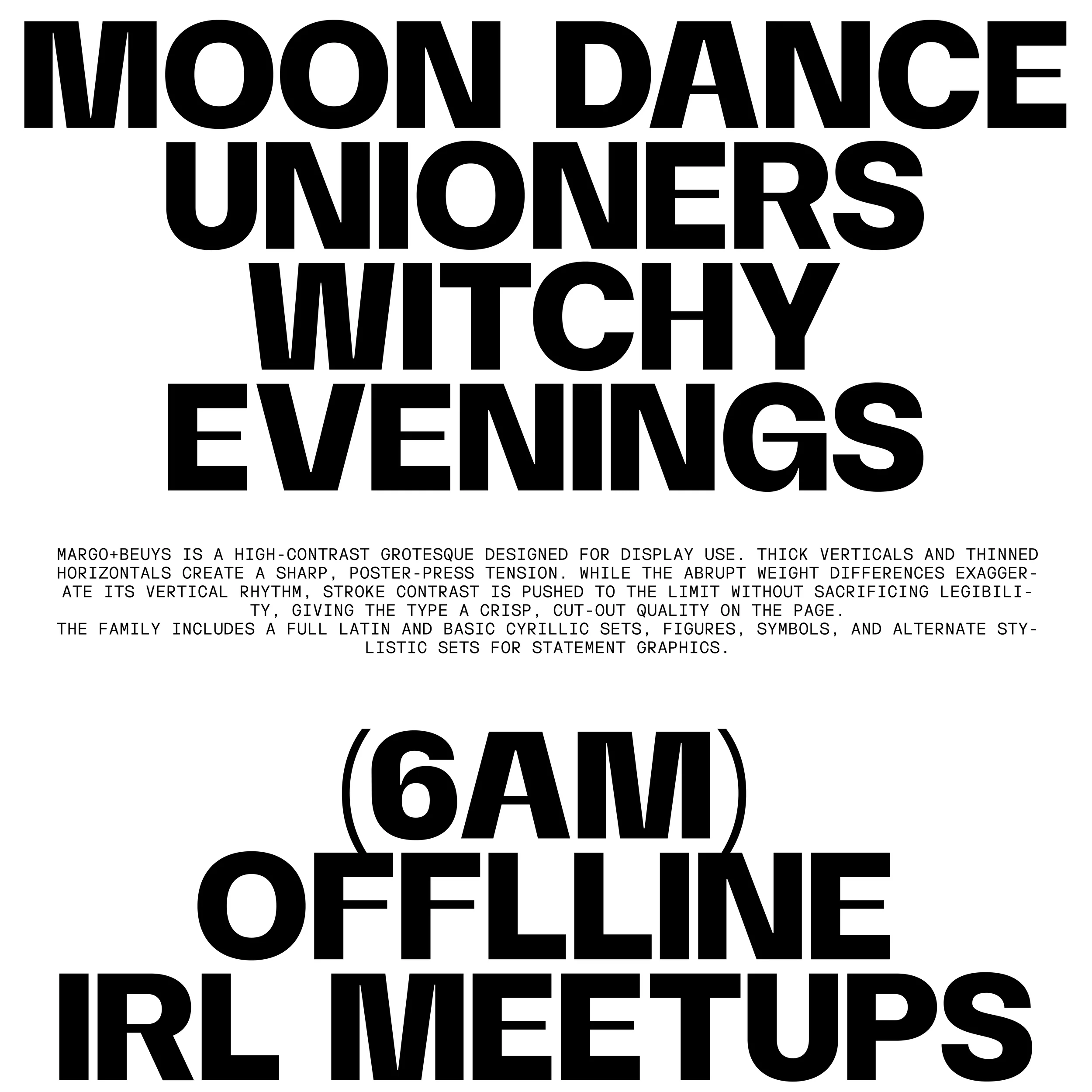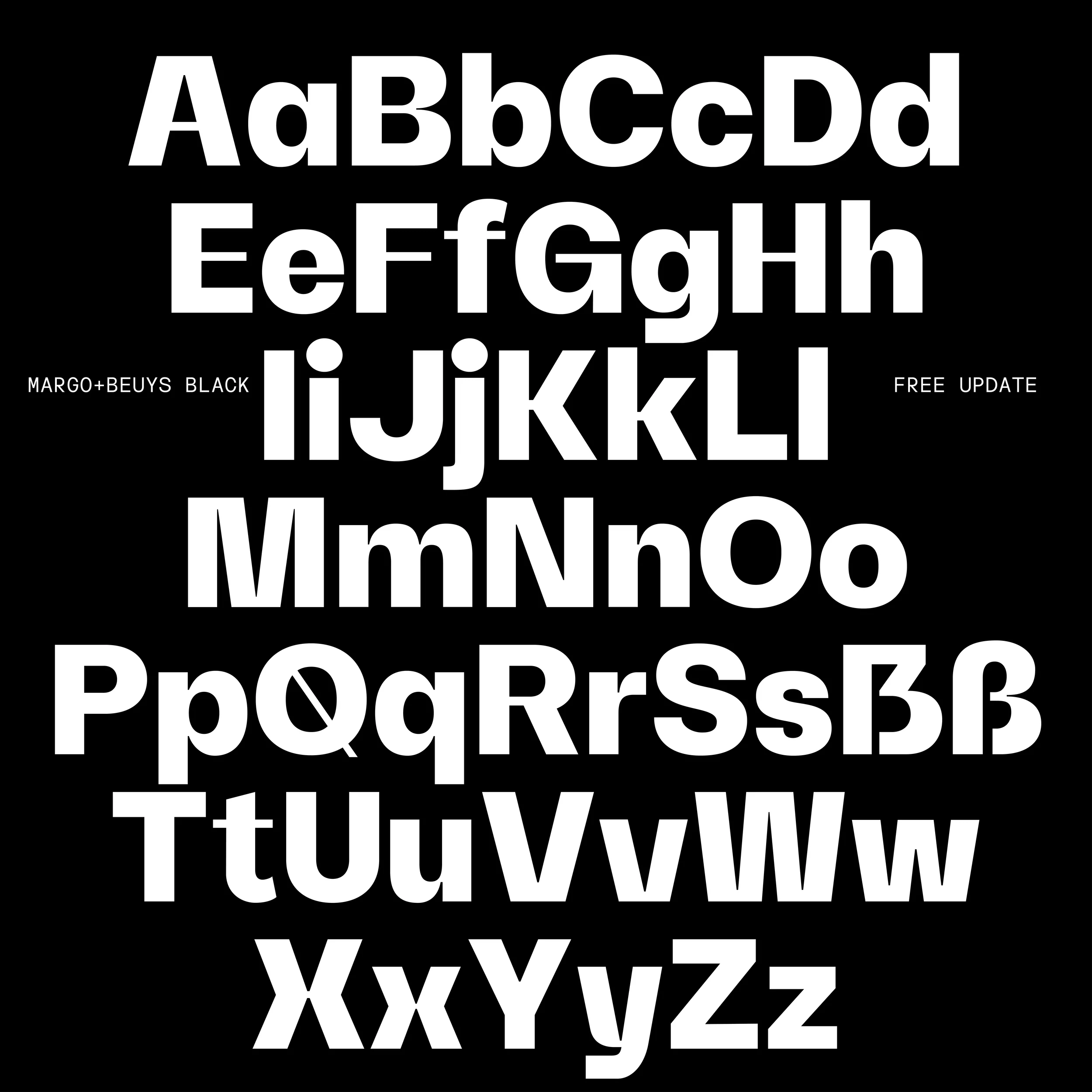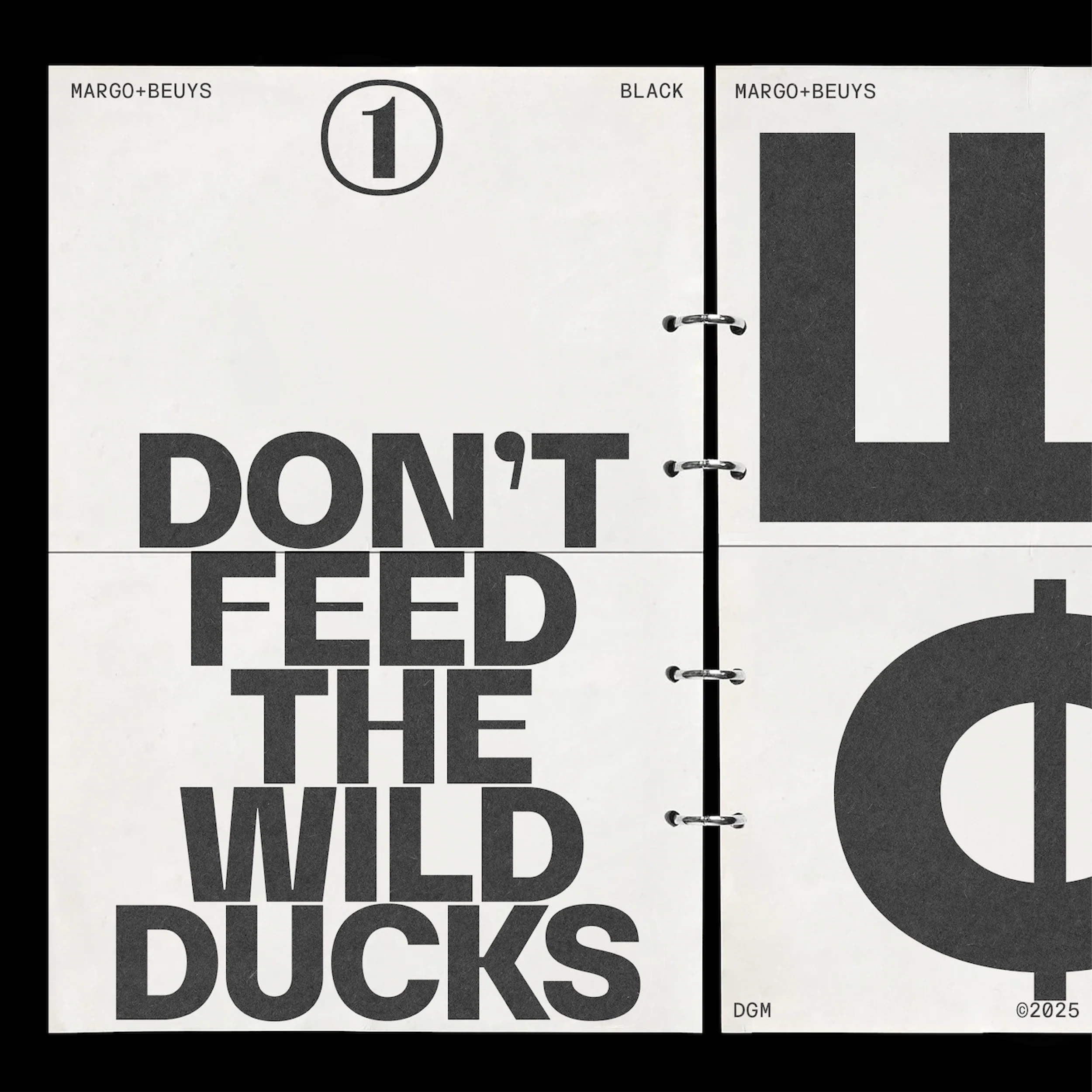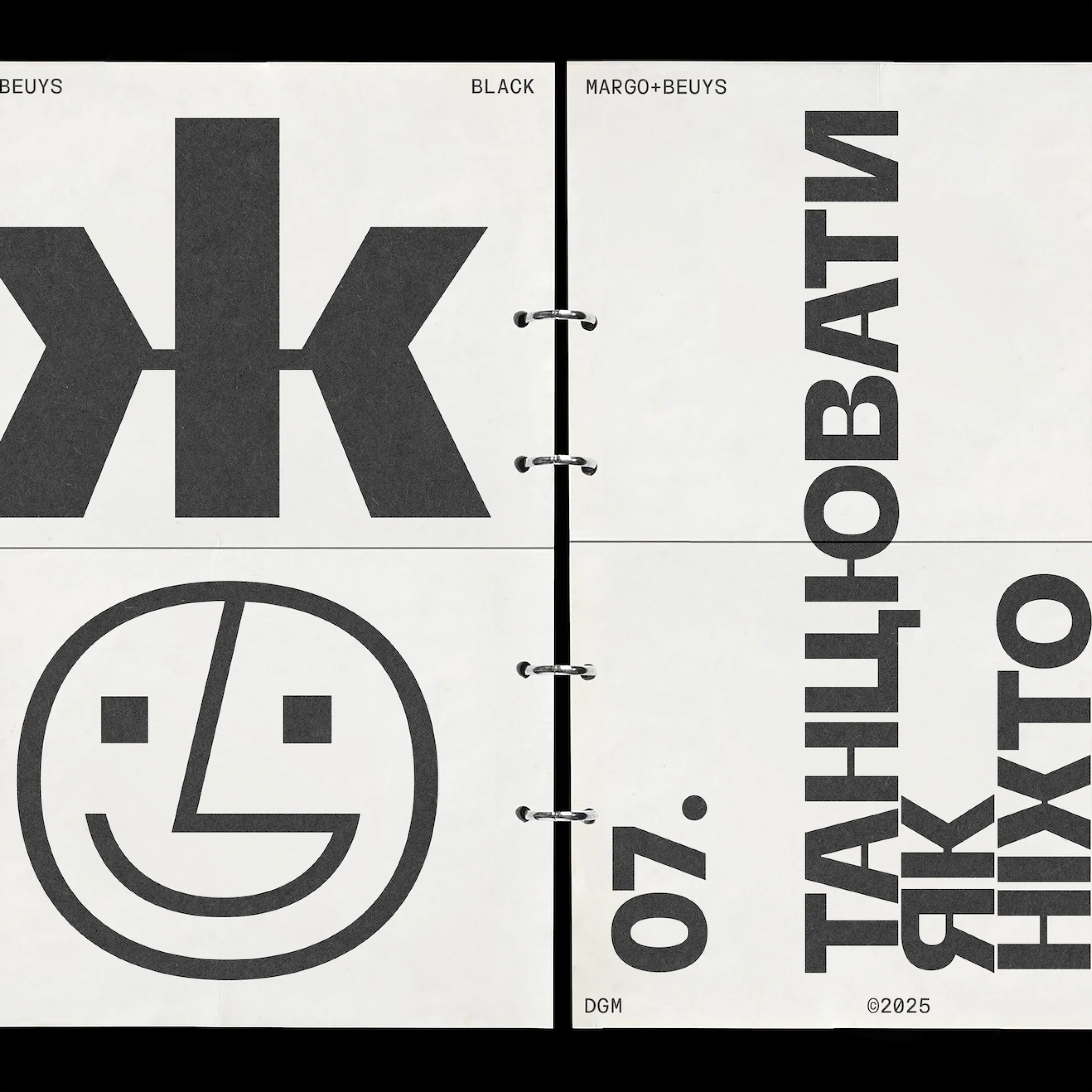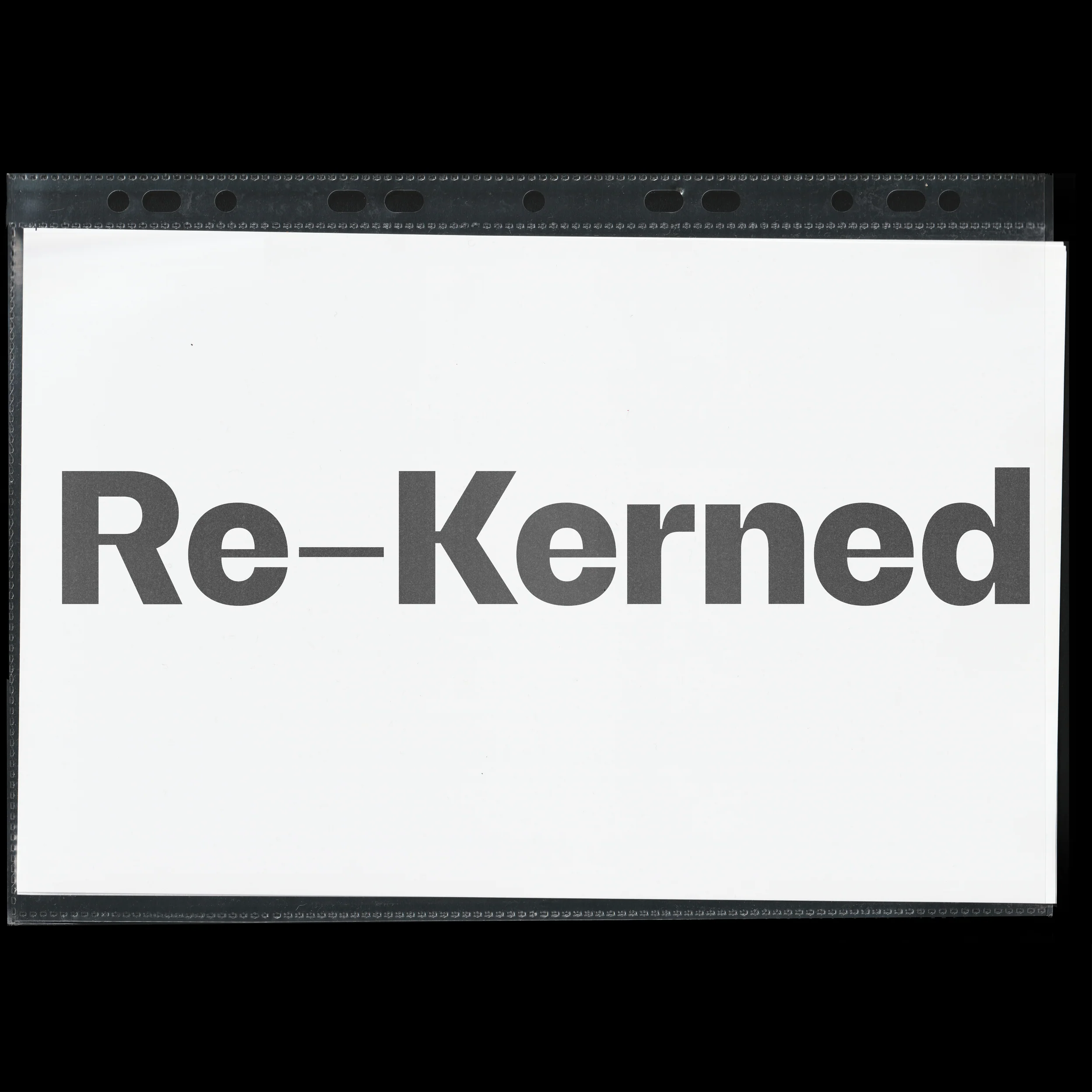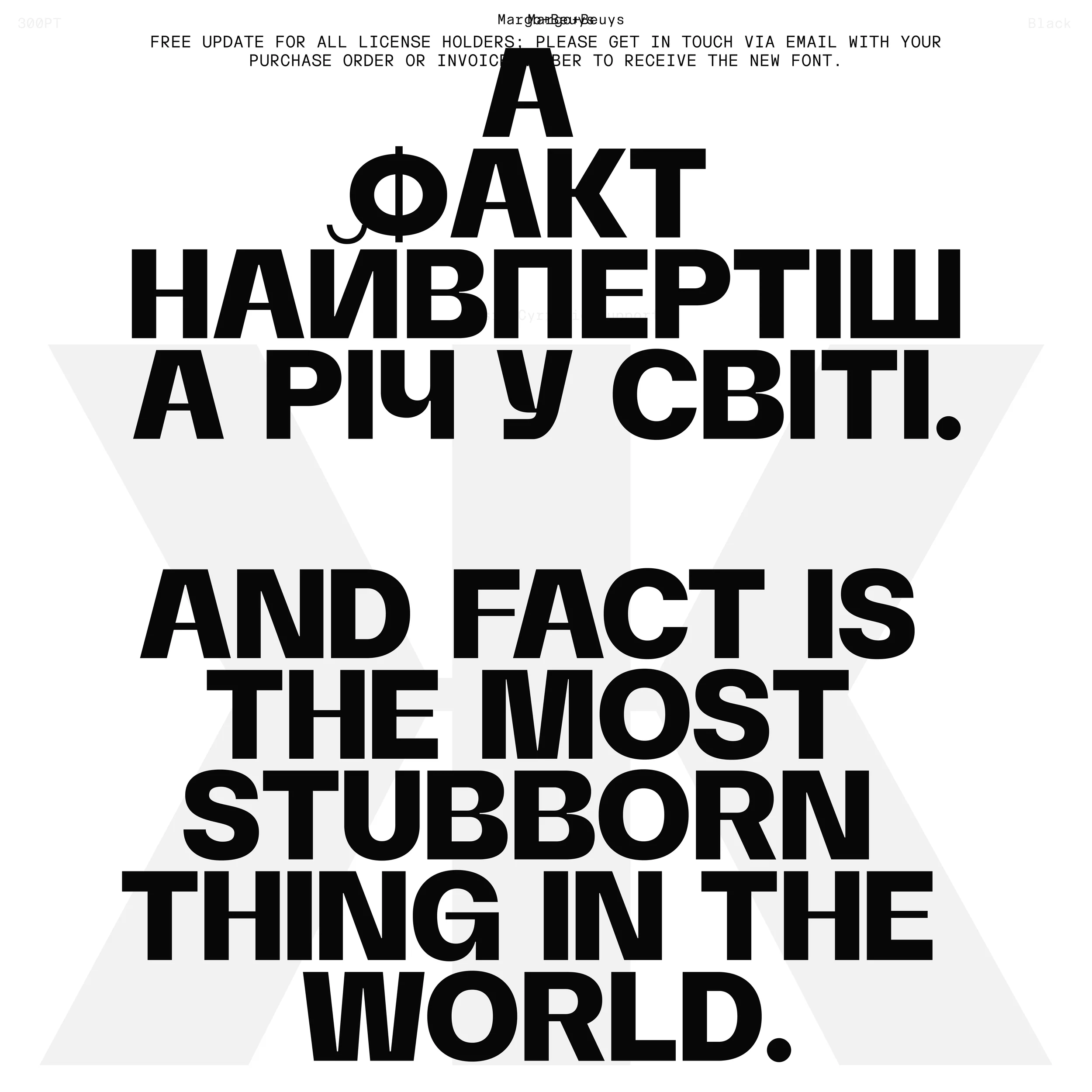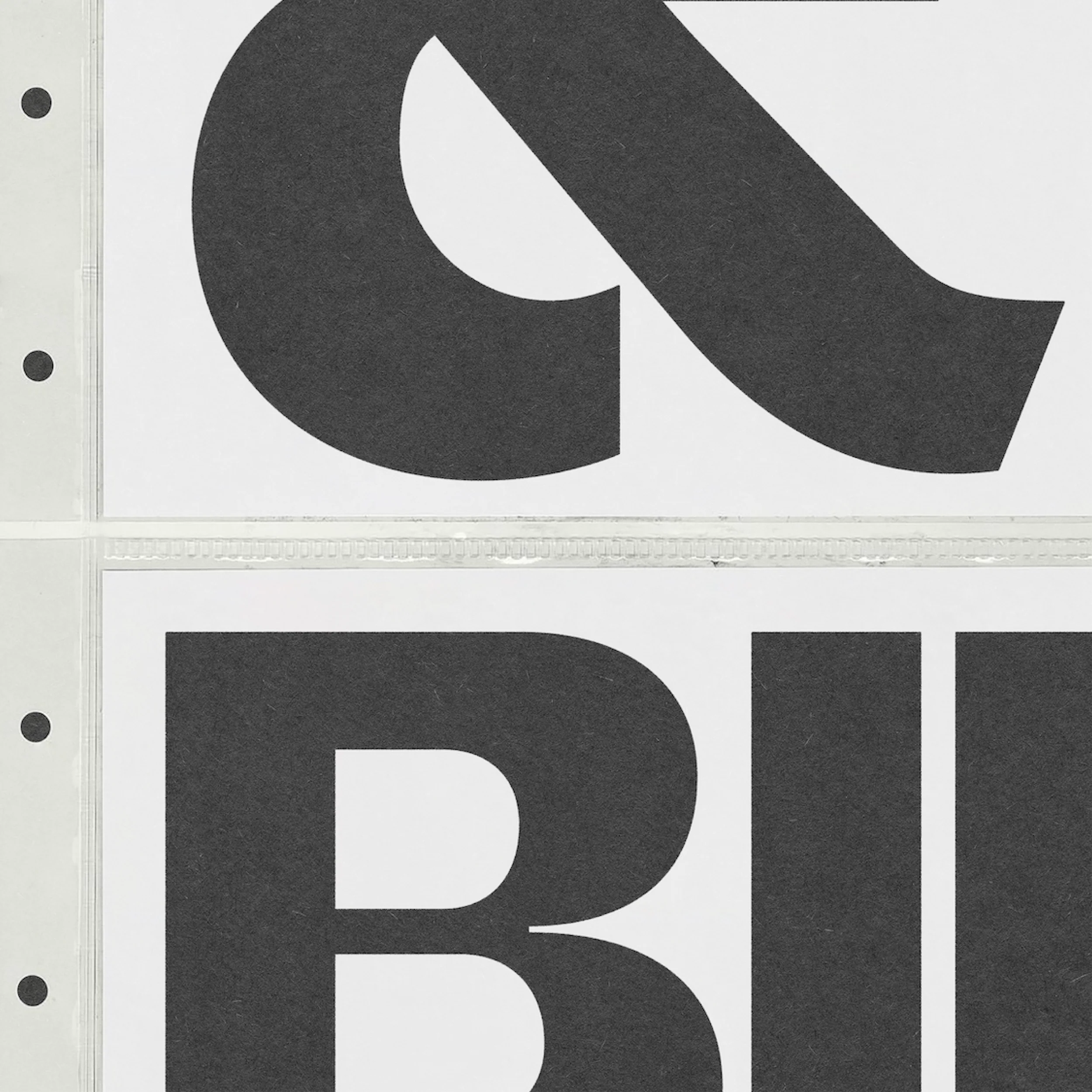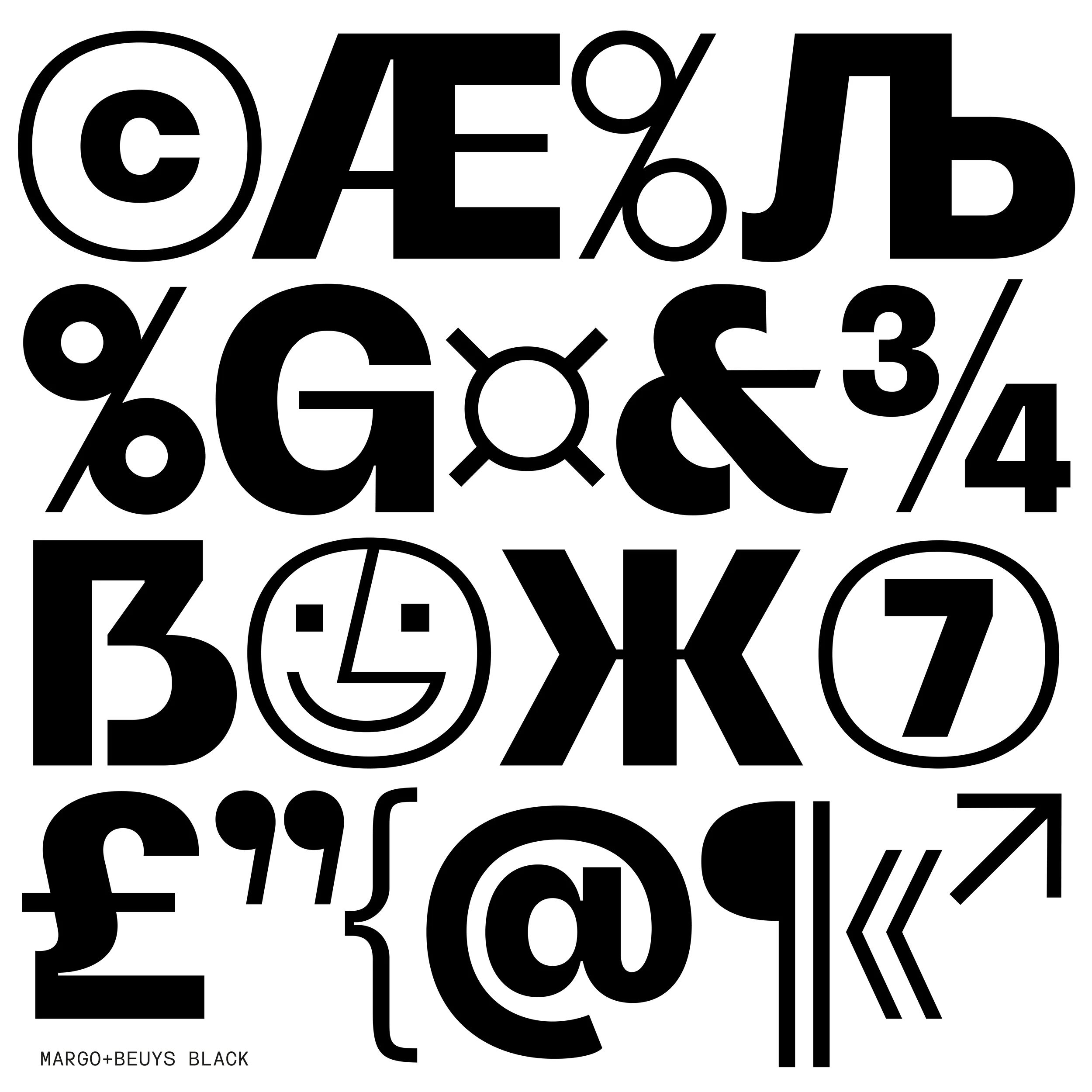
Margo+Beuys
Margo + Beuys is a singularly styled typeface that exudes a retro aesthetic while maintaining a modern edge with its edgy cuts and distinctive turns. Its design strikes a delicate balance between timelessness and contemporary appeal, achieved through contrasting thick main strokes with delicate arms, punctuation, and symbols.
The uppercase letters are compact and robust, instilling a sense of strength, while the soft ascenders, descenders, and rounded titles add a friendly and approachable touch. Margo + Beuys includes Basic Cyrillic characters and offers a variety of stylistic alternates, empowering you to customise your design with ease.
Margo + Beuys is a singularly styled typeface that exudes a retro aesthetic while maintaining a modern edge with its edgy cuts and distinctive turns. Its design strikes a delicate balance between timelessness and contemporary appeal, achieved through contrasting thick main strokes with delicate arms, punctuation, and symbols.
The uppercase letters are compact and robust, instilling a sense of strength, while the soft ascenders, descenders, and rounded titles add a friendly and approachable touch. Margo + Beuys includes Basic Cyrillic characters and offers a variety of stylistic alternates, empowering you to customise your design with ease.